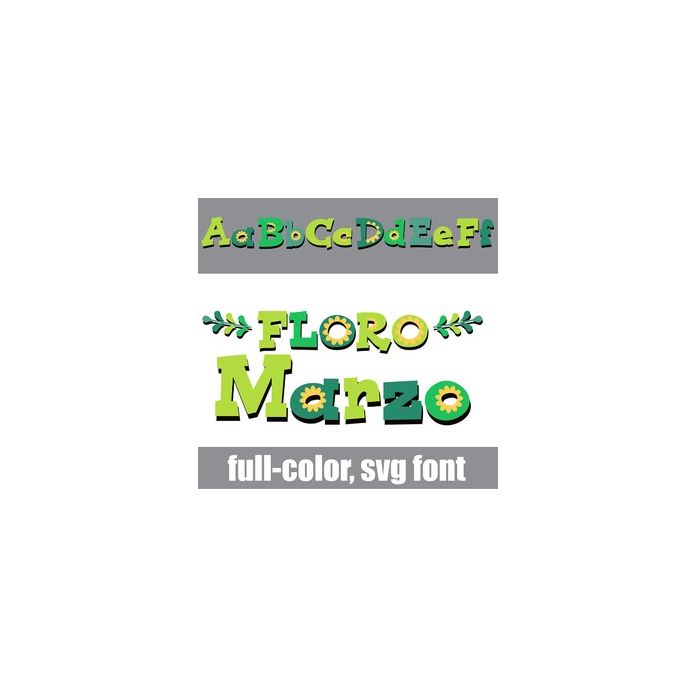
This full-color font features a whimsical serif in a green color palette and some florals here and there. There is an alt case w/ additional colors you can access through your system or Silhouette's glyph map.